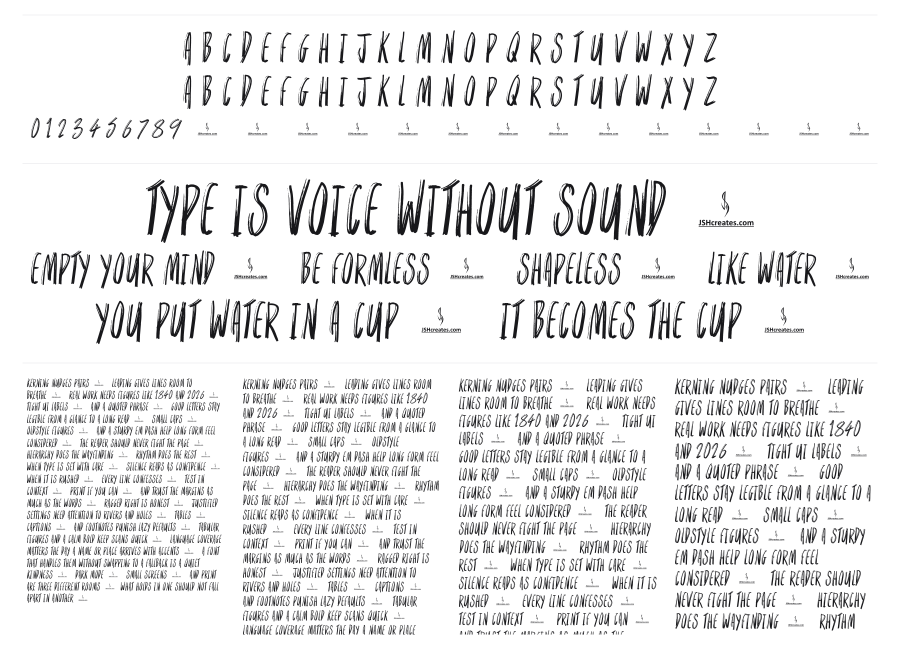
Enemy Breach
Enemy Breach is a rough uppercase brush font with heavy ink texture and ragged stroke edges that feel genuinely hand-painted. The condensed proportions and irregular brushwork give it a kinetic, aggressive energy suited to posters, album covers, and game titles. It reads loud.